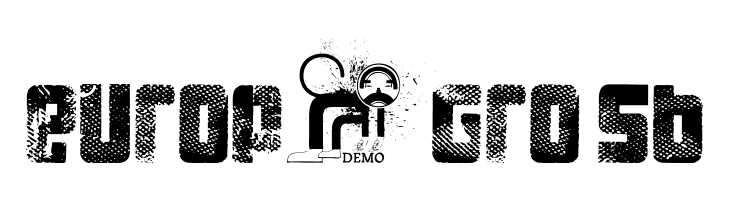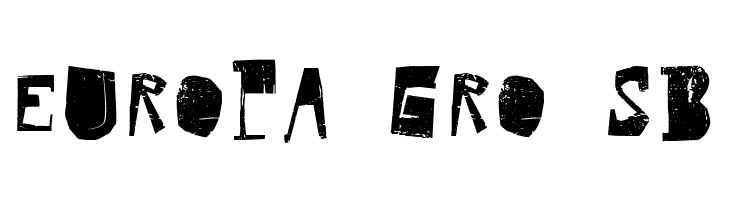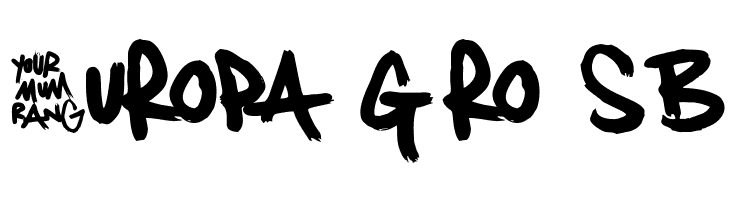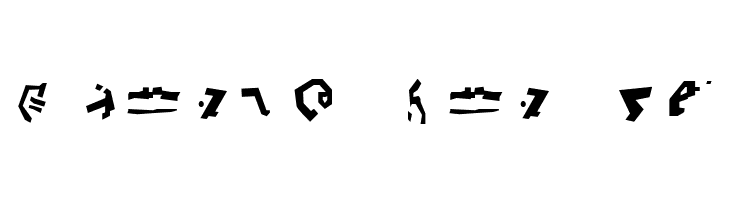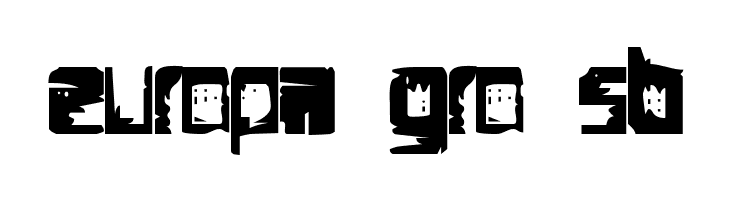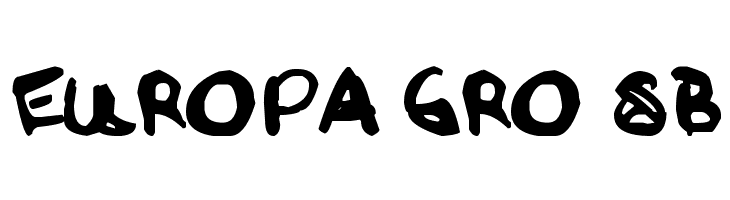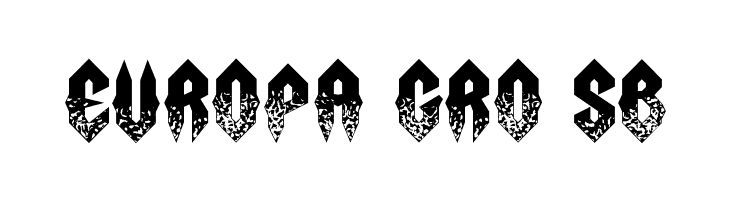
A bold, graffiti-inspired font with dynamic, expressive strokes.
A bold, angular graffiti-style font with dynamic, fragmented characters.
A bold, graffiti-inspired font with dynamic, angular characters.
A bold, textured font with an edgy, distressed style perfect for impactful designs.
A rugged, distressed font with a bold, grungy texture and irregular edges.
A bold, graffiti-inspired font with a raw, hand-painted look.
A bold, grunge-style font with a distressed, textured appearance.
A bold, slanted font with a graffiti-like, dynamic style.
A bold, distressed font with a textured, industrial style.
A bold, distressed font with a rugged, urban aesthetic.